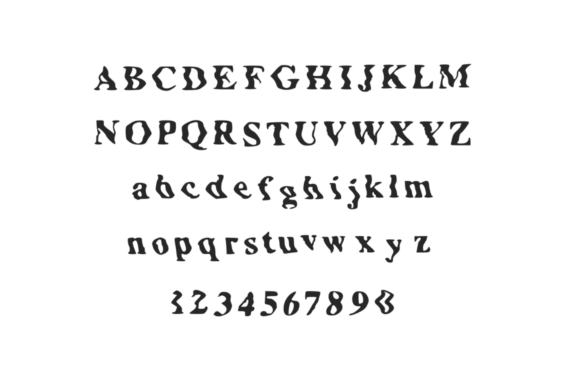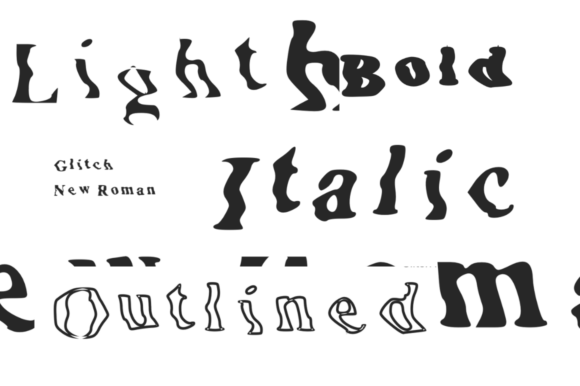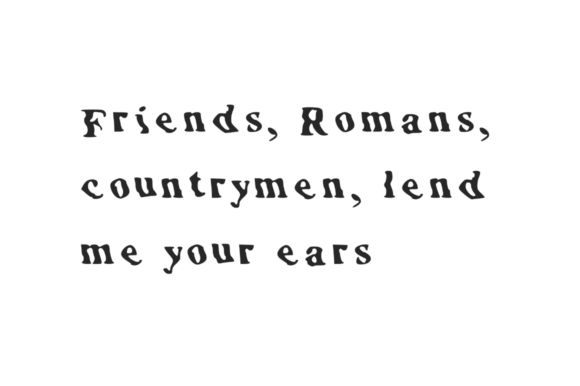
Introduction to Glitch New Roman Font
Have you ever been in the zone, staring at a blank canvas, waiting for inspiration to strike? That’s exactly what happened to me when I stumbled upon the Glitch New Roman Font. As a designer, I’m always on the lookout for unique design resources to elevate my creative projects. And let me tell you, this font did not disappoint.
With its quirky, distorted feel, the Glitch New Roman Font is a game-changer for anyone looking to add a touch of edginess to their design. Whether you’re a seasoned hacker, a web nerd, or simply a fan of glitch art, this font is sure to bring a smile to your face. And the best part? It’s a high-quality, free download, making it an invaluable resource for designers of all levels.
Key Features of Glitch New Roman Font
- Unique Glitch Effect: The Glitch New Roman Font features a distinctive glitch effect that adds a touch of digital decay to any design project.
- High-Quality Design Resource: This font is designed to provide a high-quality, professional look for any creative project, making it an excellent design resource.
- Transparent Background: The font includes a transparent background option, allowing designers to easily integrate it into their designs and achieve a seamless look.
- Perfect for Creative Projects: The Glitch New Roman Font is ideal for creative projects that require a unique and eye-catching design element, such as digital art, graphic design, and typography.
Honest Review: Glitch New Roman Font
As a designer, I’m always on the lookout for high-quality design resources to elevate my creative projects. Recently, I stumbled upon the Glitch New Roman Font, and I’m excited to share my honest review with you.
- Unique aesthetic: The Glitch New Roman Font has a distinct, futuristic feel that sets it apart from other fonts.
- High-quality design: The font’s design is crisp and well-executed, with a transparent background that allows for seamless integration with any background.
- Limited character set: The Glitch New Roman Font’s character set is limited, which may not be ideal for designers who need to use a wide range of characters in their projects.
- Not suitable for body text: The font’s unique aesthetic may not be suitable for body text, as it can be difficult to read in long blocks of text.
Overall, I think the Glitch New Roman Font is a great addition to any designer’s toolkit. Its unique aesthetic and high-quality design make it perfect for creative projects that require a futuristic feel. While it may have some limitations, I think it’s well worth the free download.
The Glitch New Roman Font is perfect for creative projects, such as graphic design, digital art, and typography. It’s also great for adding a unique touch to presentations, documents, and websites. With its high-quality design and free download availability, the Glitch New Roman Font is a valuable design resource for any project.